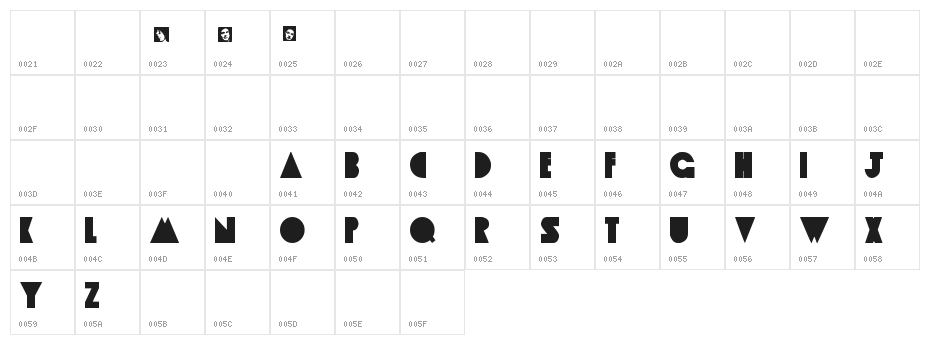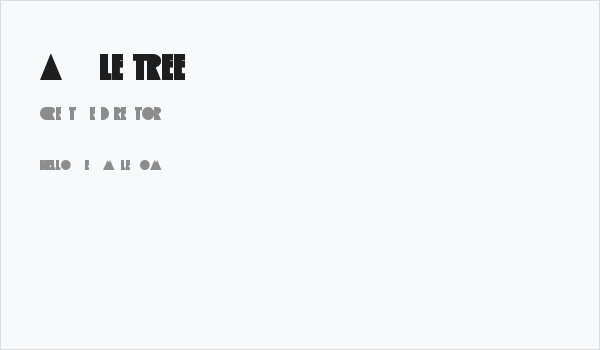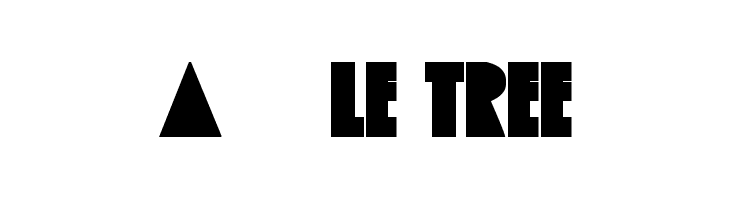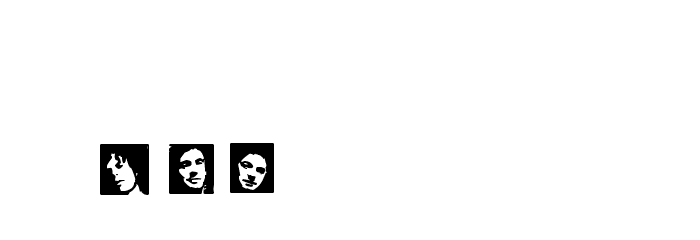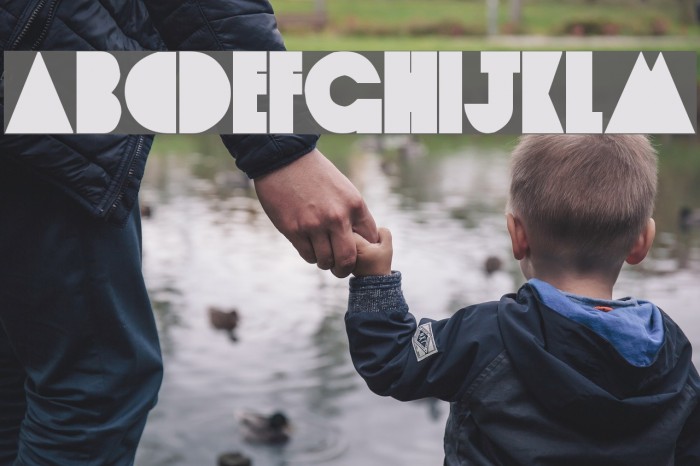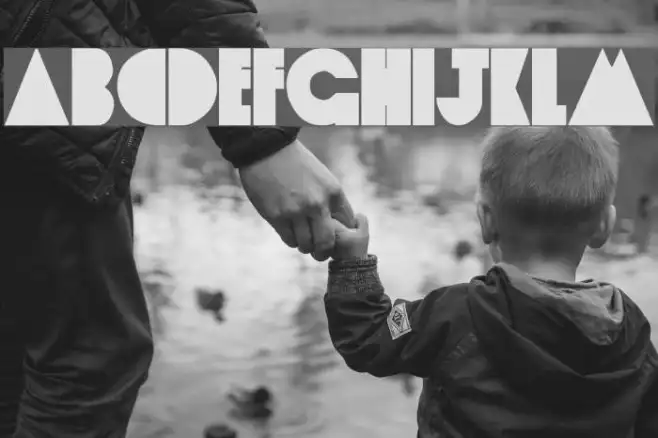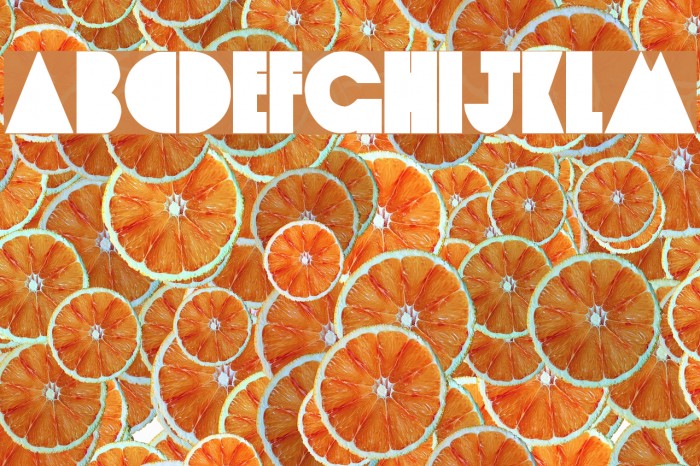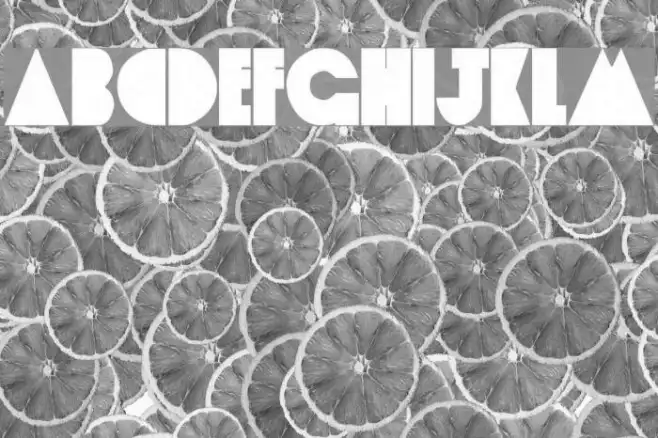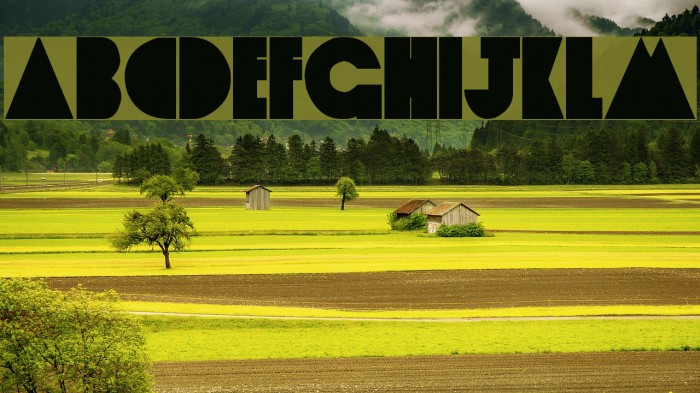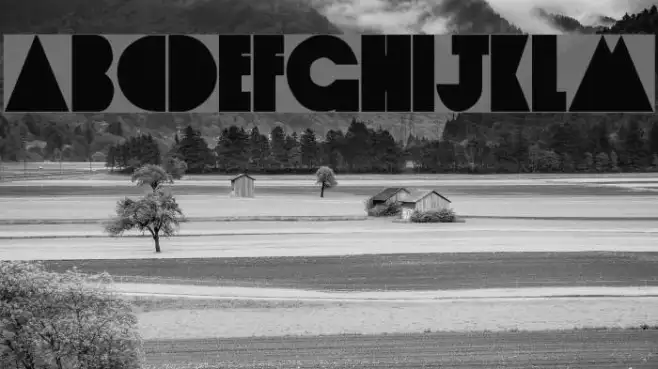
Apple Tree Font
Apple Tree Description
This font is a bold and striking display typeface characterized by its geometric shapes and high contrast. The letters are constructed with solid, block-like forms, creating a sense of strength and modernity. The angular design of the characters gives it a unique and artistic flair, making it ideal for eye-catching headlines and creative projects. The uppercase letters are particularly prominent, with some characters featuring sharp, triangular elements that add to the overall dynamic appearance. The font lacks lowercase letters and numerals, focusing instead on a powerful uppercase alphabet.
| Proposed Projects | Ideal for posters, logos, album covers, and any project requiring a bold, artistic statement. |